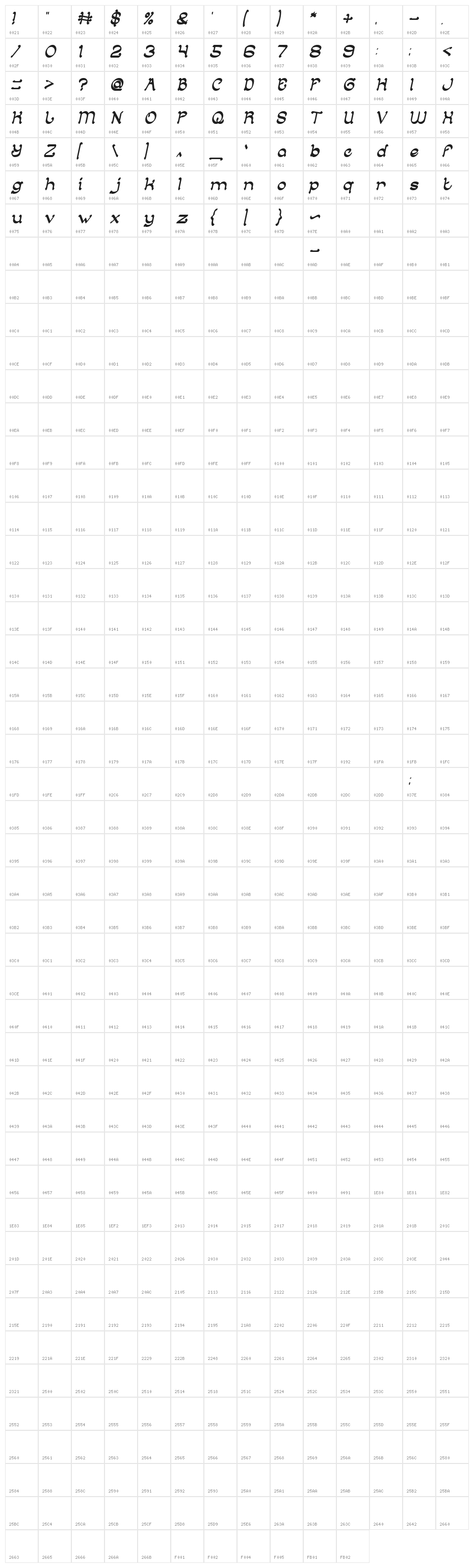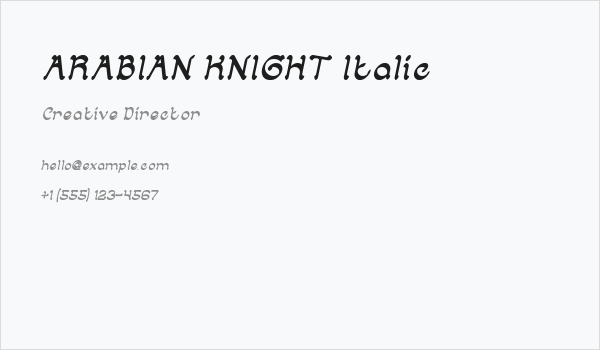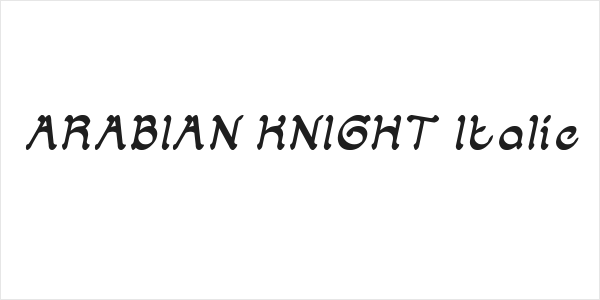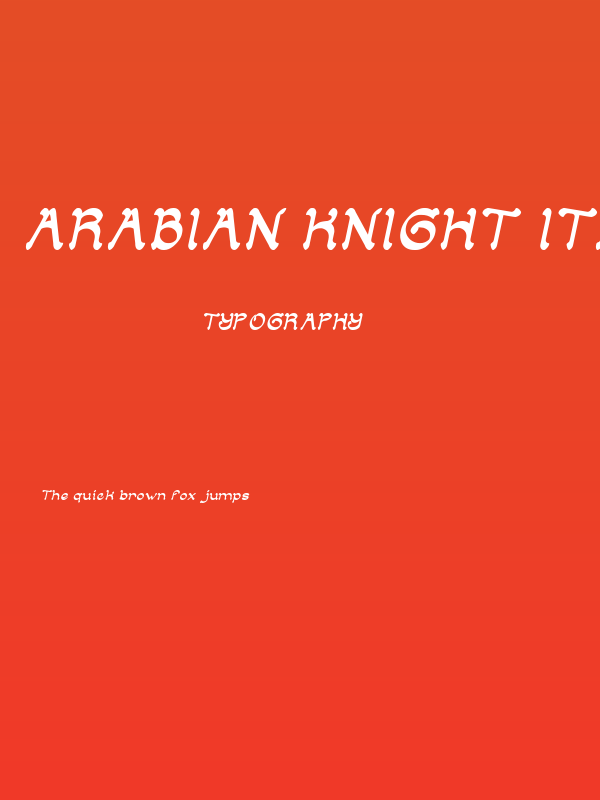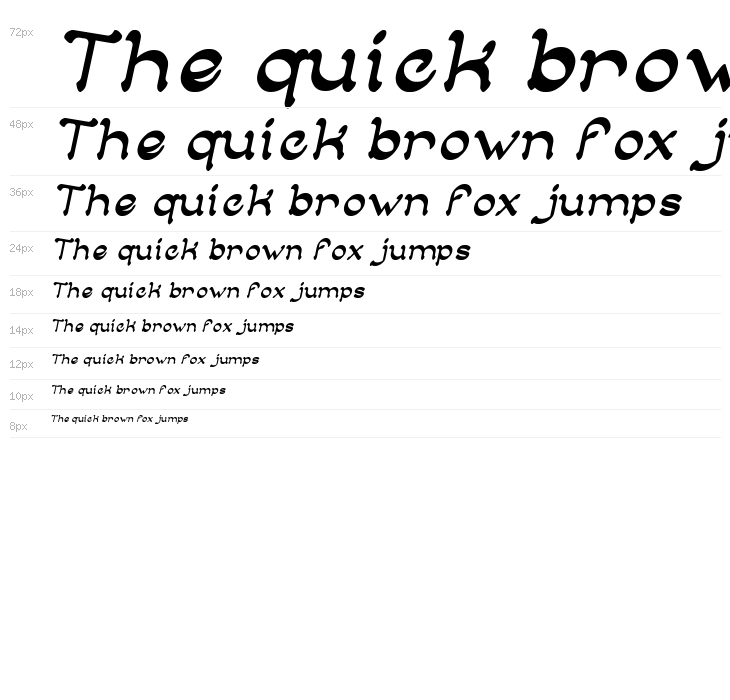
ARABIAN KNIGHT Italic Font
ARABIAN KNIGHT Italic Description
This font features a dynamic and flowing style, characterized by its italicized, cursive-like appearance. The letters exhibit a playful yet elegant form, with smooth curves and a consistent slant that adds a sense of motion. The uppercase letters are bold and prominent, while the lowercase letters maintain a harmonious balance, offering a cohesive look across the alphabet. The numerals and special characters are designed to complement the overall aesthetic, ensuring versatility in various design contexts. The font's unique style makes it suitable for projects that require a touch of sophistication and creativity.
| Use Case | Headlines, Logos, Decorative text |
| Proposed Projects | Ideal for invitations, greeting cards, branding projects, and decorative headlines. |